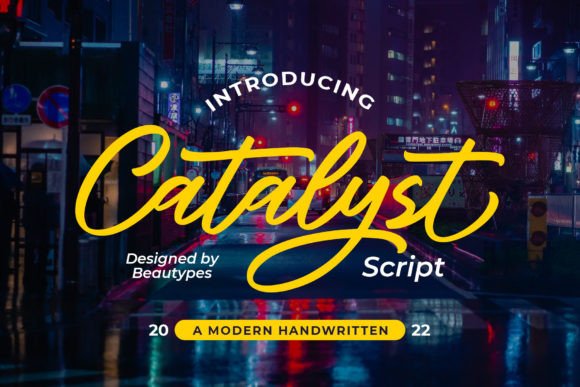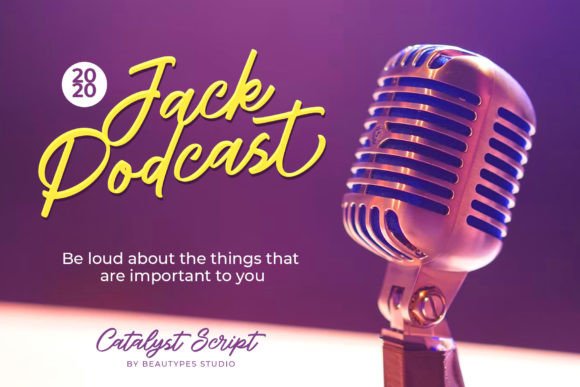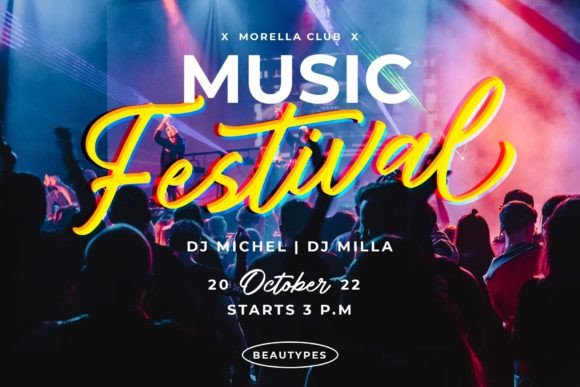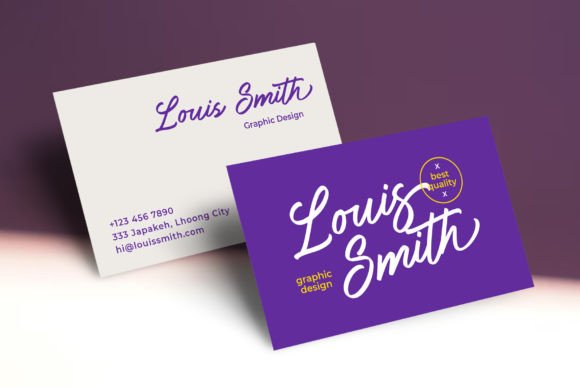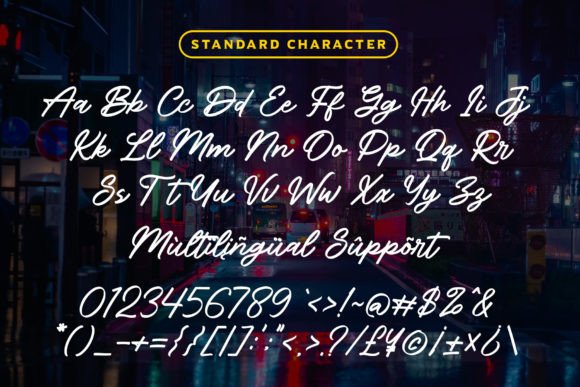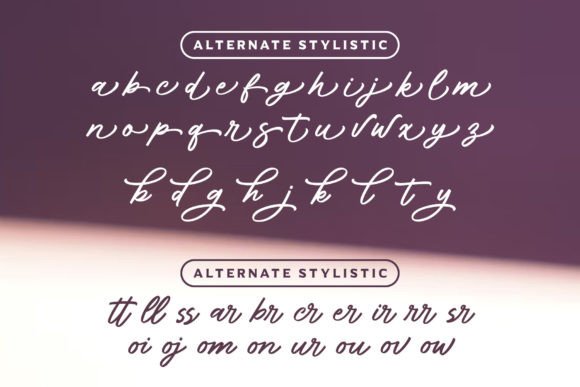
Catalyst Script Font
About Catalyst Script Font
**Catalyst Script – Fresh and Unique Handwritten Font**
Catalyst Script is an exceptional handwritten font that brings a fresh and unique style to your design projects. Here’s why this font is worth considering for your creative endeavors:
1. **Handwritten Appeal:** Catalyst Script captures the charm of handwritten typography, adding a personal touch to your designs. Its fluid and natural strokes create an authentic look.
2. **Versatile Usage:** This font is a versatile choice suitable for various design applications, including logos, stationery, posters, apparel, branding, advertisements, product packaging, product designs, labels, wedding invitations, and more.
3. **Distinctive Style:** Catalyst Script stands out with its distinctive style. It’s not your average script font and can lend a unique character to your designs.
4. **Customization:** With its PUA encoding, you can easily access a wide range of alternate glyphs and swashes, giving you the flexibility to customize and create custom typography for your projects.
5. **Logo Design:** Create memorable and eye-catching logos using Catalyst Script. Its unique style can help your brand stand out and leave a lasting impression.
6. **Stationery and Posters:** Use this font to design stationery, including business cards and letterheads. It’s also ideal for poster designs, adding a touch of authenticity to your promotional materials.
7. **Apparel and Merchandise:** Catalyst Script is well-suited for apparel design, making it perfect for creating custom T-shirt graphics, hats, and other merchandise.
8. **Product Packaging:** Design eye-catching product packaging that reflects a handmade and artisanal feel with the help of Catalyst Script.
9. **Wedding Invitations:** For a personalized touch on wedding invitations and event stationery, Catalyst Script brings elegance and uniqueness to the design.
10. **Branding:** Incorporate Catalyst Script into your branding materials to give your brand a distinct identity. It’s perfect for businesses looking to convey a sense of creativity and individuality.
11. **Product Labels:** Whether for food products, cosmetics, or handmade goods, this font adds an artisanal touch to product labels.
12. **Advertisements:** Use Catalyst Script in your advertising campaigns to create visually appealing and engaging ad copy.
13. **Digital and Print:** Whether for web or print, Catalyst Script adapts seamlessly to various mediums, ensuring your message comes across effectively.
14. **Custom Projects:** Leverage the unique features of Catalyst Script to create custom typography and design elements for one-of-a-kind projects.
15. **Unique Character:** Catalyst Script’s one-of-a-kind style can give your designs a character all their own, setting them apart from the ordinary.
Catalyst Script offers a fresh and unique take on handwritten fonts, making it an excellent choice for designers looking to infuse creativity and authenticity into their projects. Its versatility and PUA encoding make it a valuable addition to your font library.